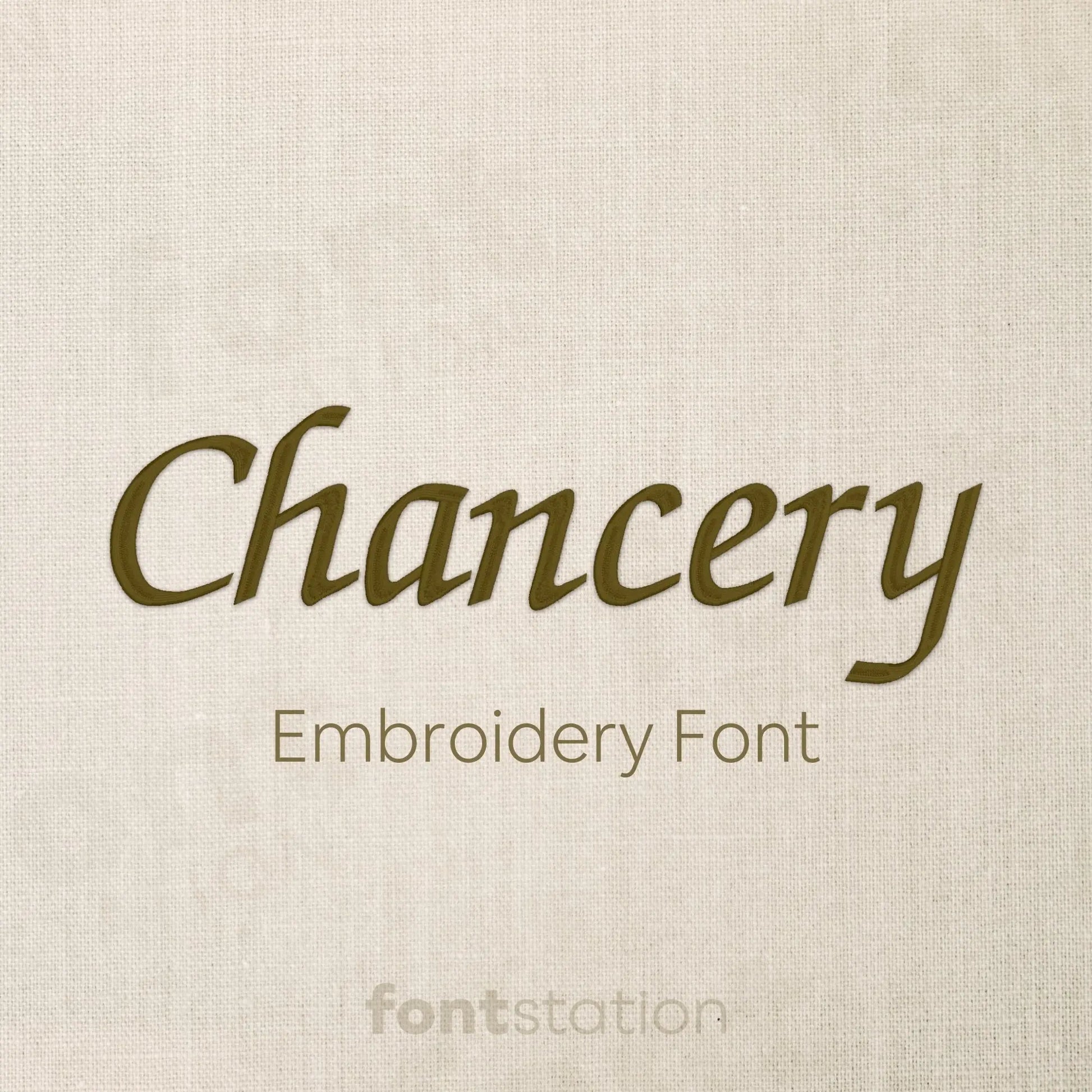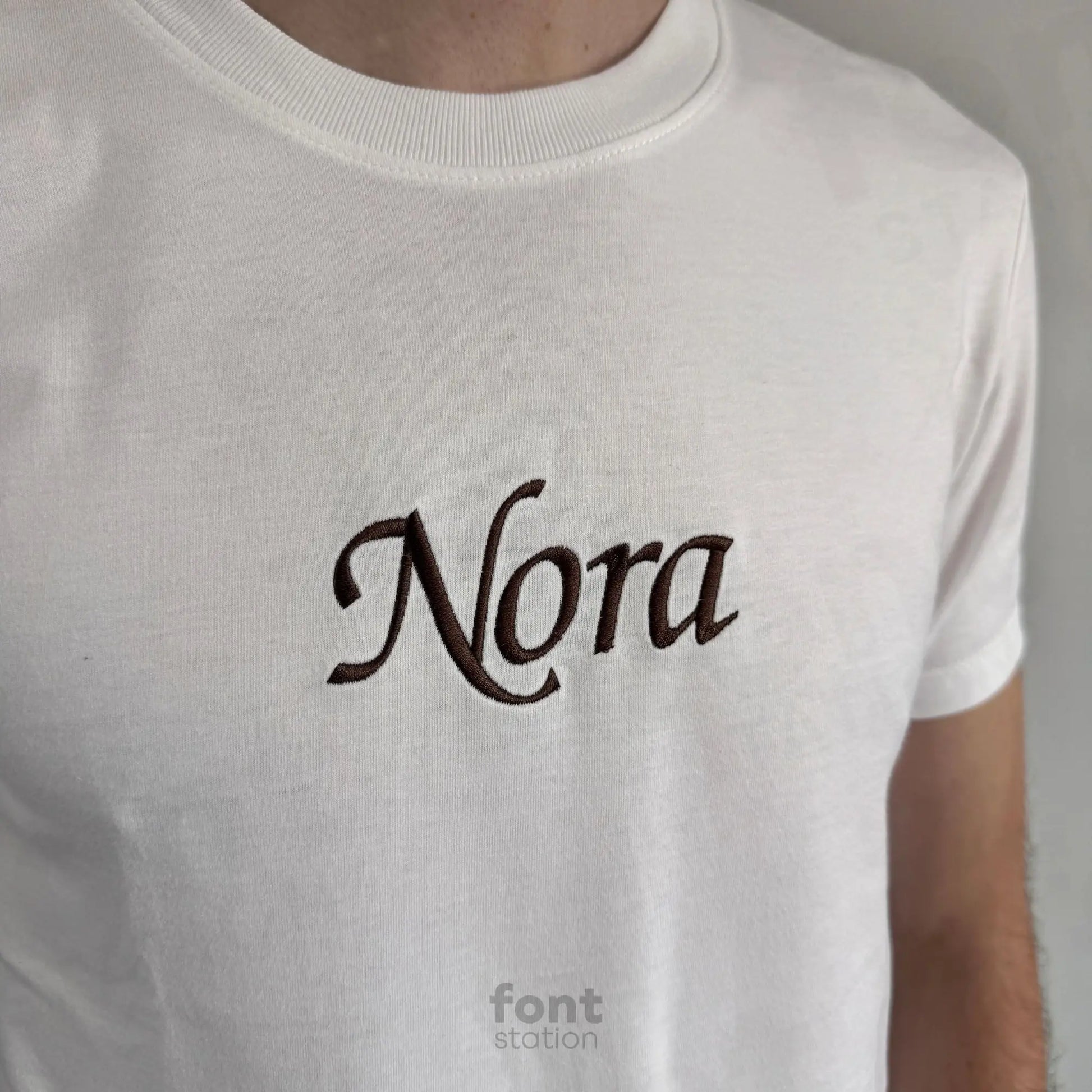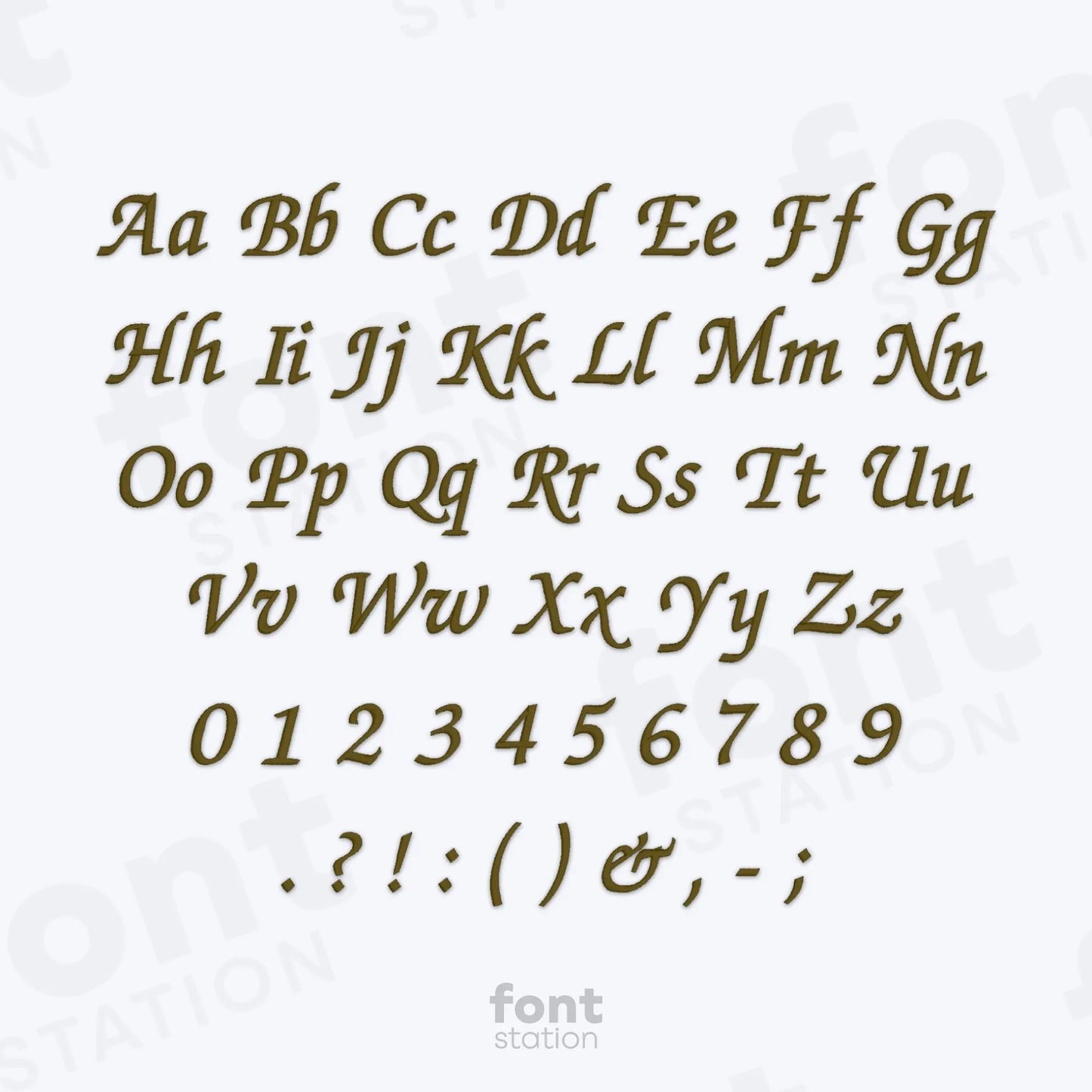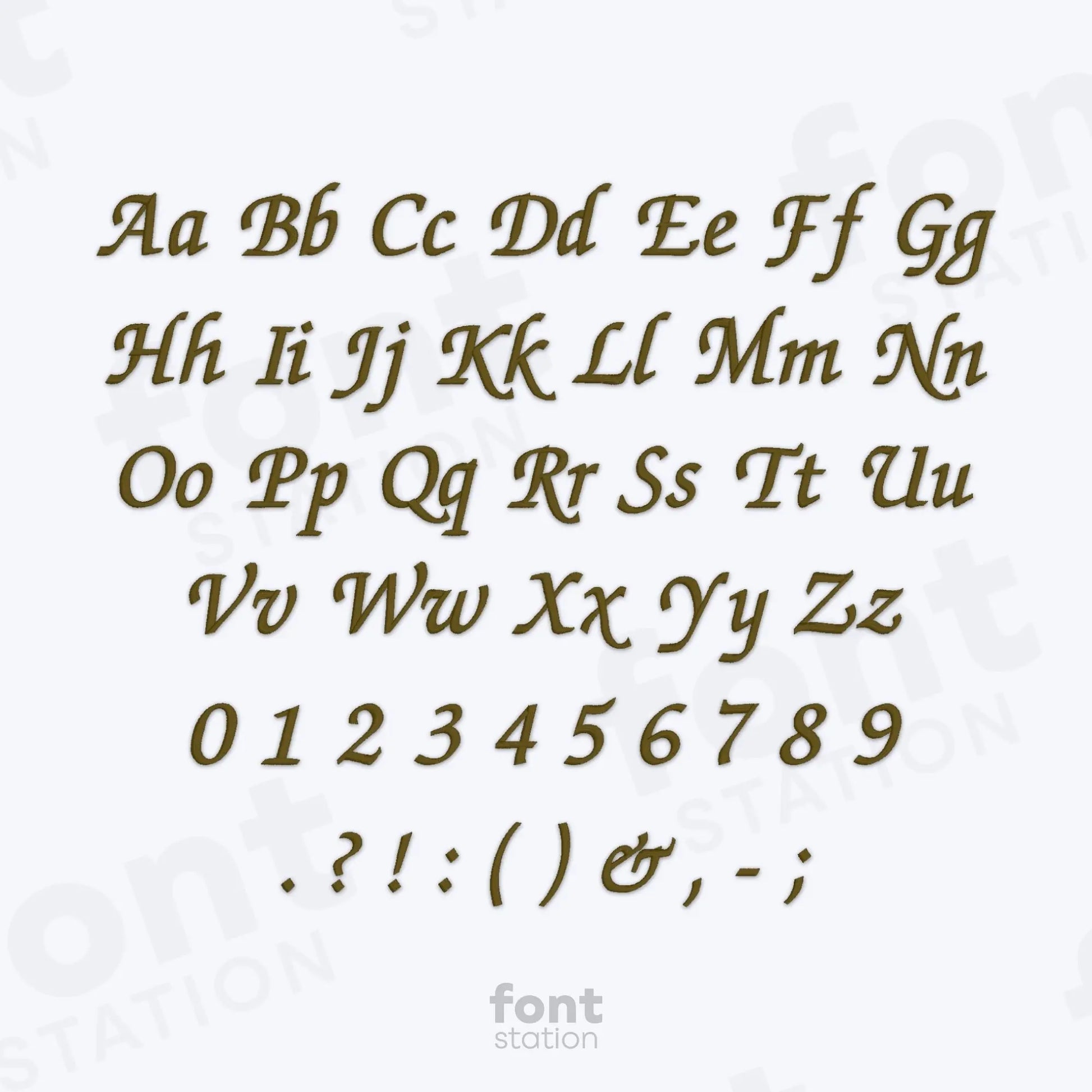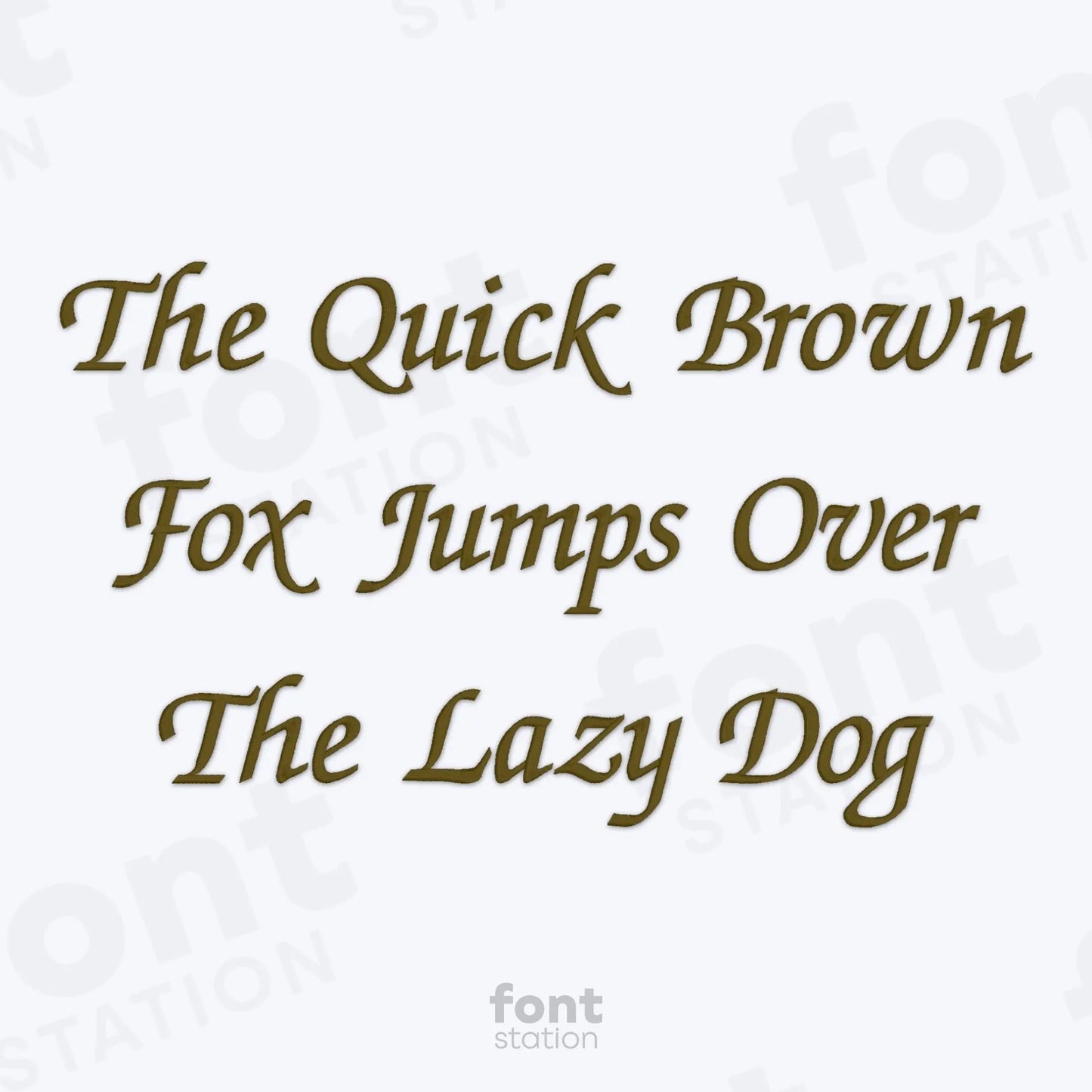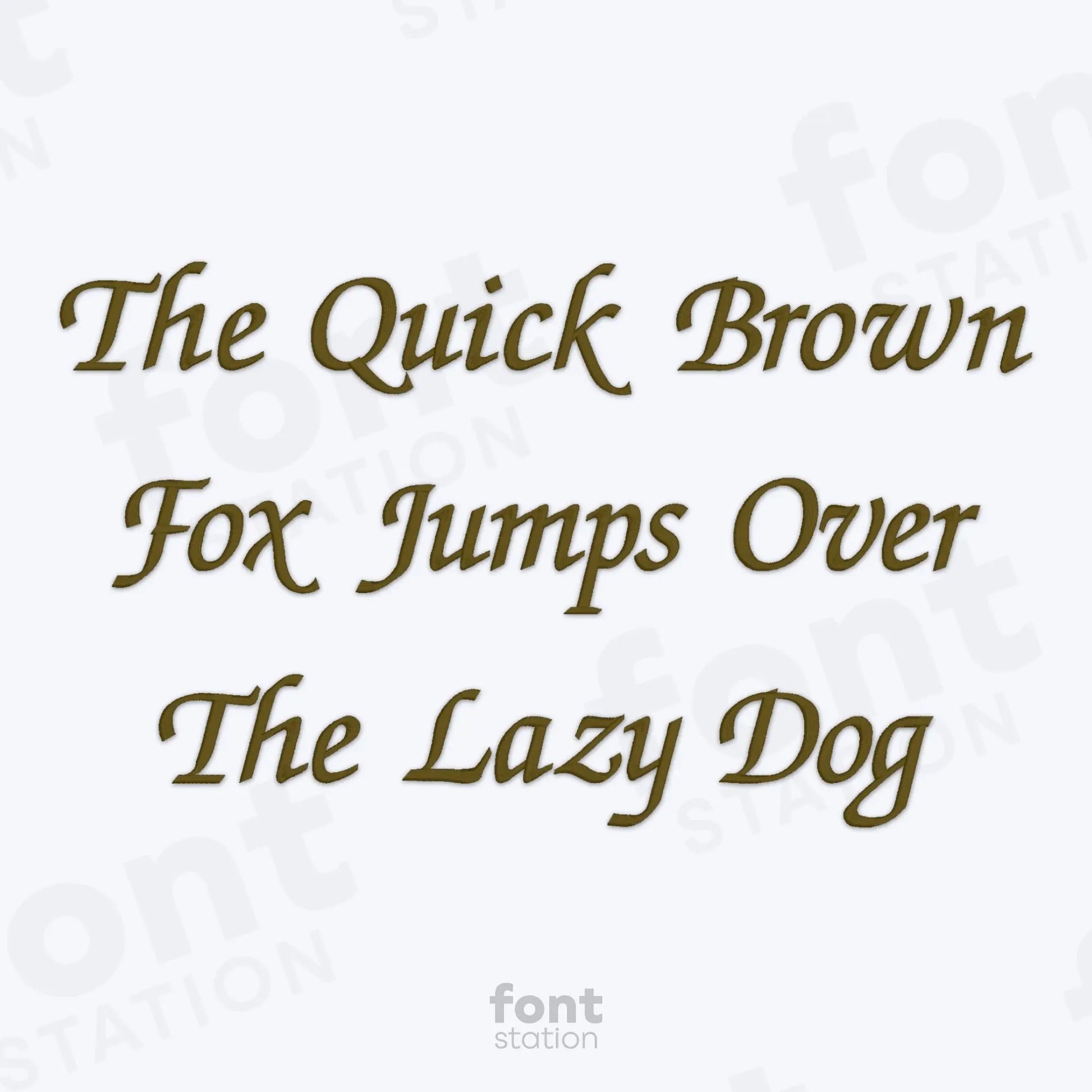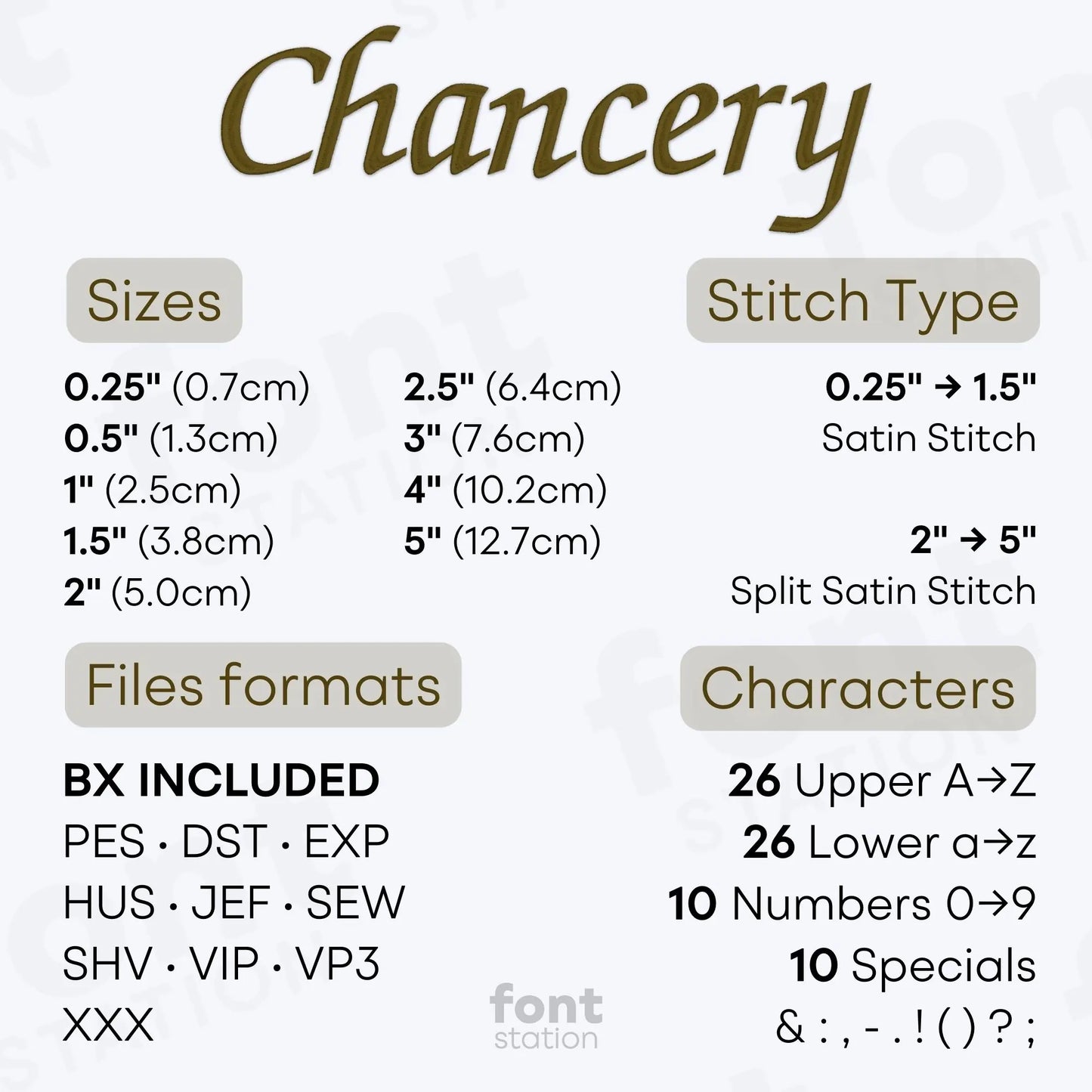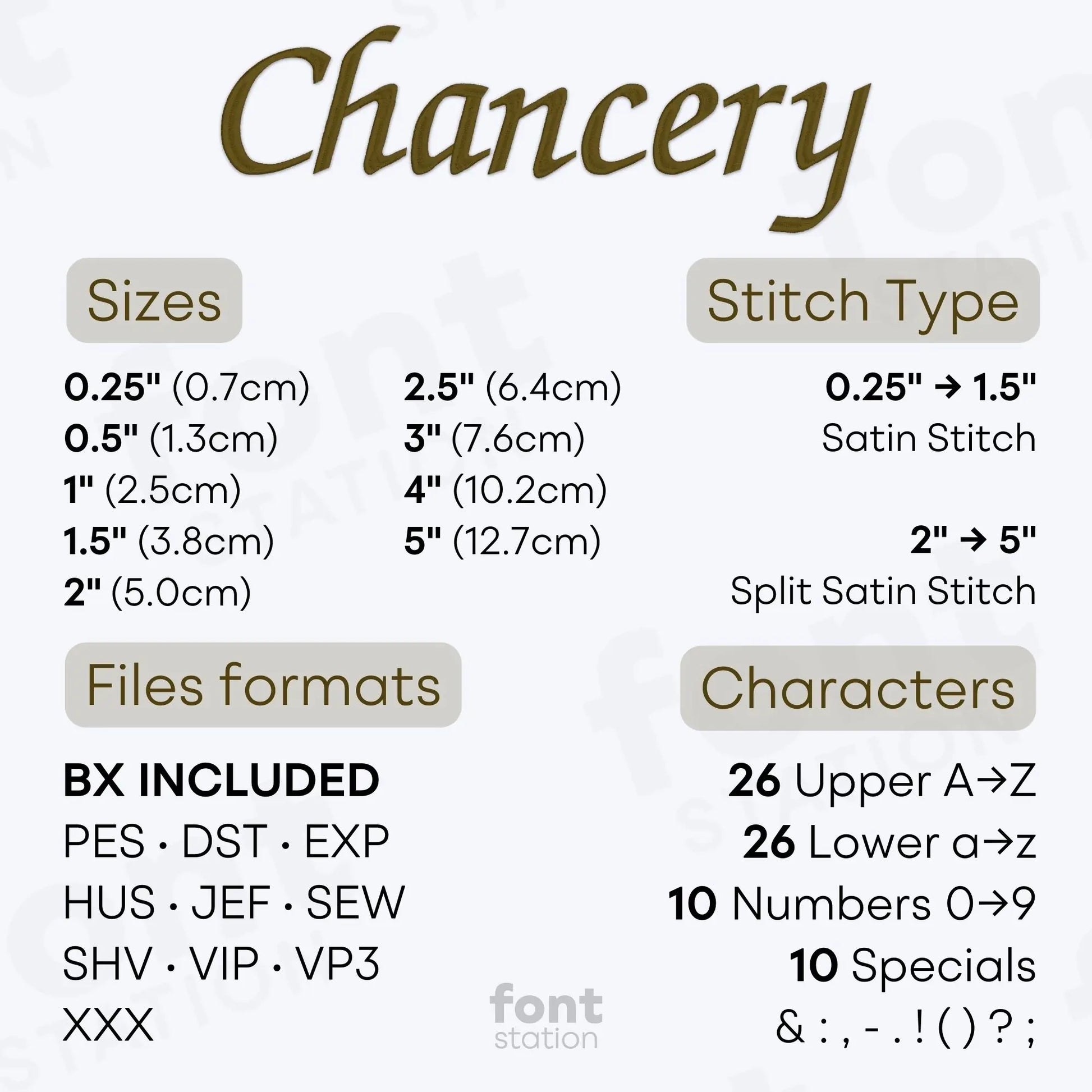
Chancery Embroidery Font
Introducing our Chancery embroidery font, a calligraphy alphabet with elegant italic letters that stitch beautifully on your embroidery machine. Perfect for vintage designs and any refined project.
About the Chancery Embroidery Font
Characters: 26 uppercase, 26 lowercase, 10 numbers y symbols & : , - . ! ( ) ? ;
Our Chancery embroidery font brings an elegant calligraphy style to your embroidery projects.
This refined machine embroidery font features a flowing calligraphy alphabet with graceful, italic letters inspired by classic handwritten scripts. Perfect for wedding invitations, monograms, personalized gifts, and vintage-style embroidery designs, it adds sophistication and charm to every creation.